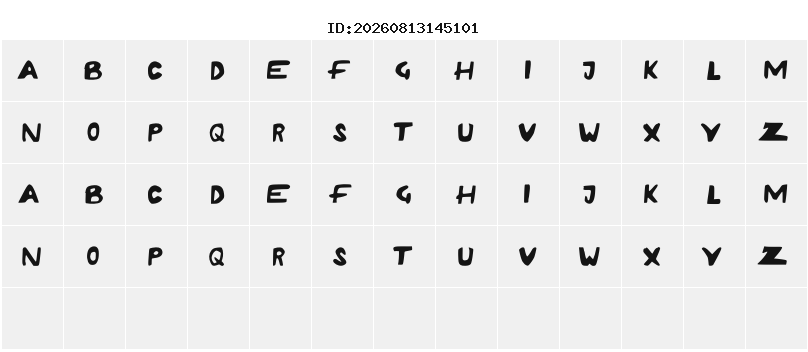
• Font Name: RUSHDA
• Font Style: Funky
• Full Font Name: RUSHDA Funky
• Designer: Dr. Usama
About RUSHDA.otf
RUSHDA.otf is a modern, elegant sans-serif font designed for ultimate readability and visual harmony. Perfect for branding, headlines, web design, and print materials.